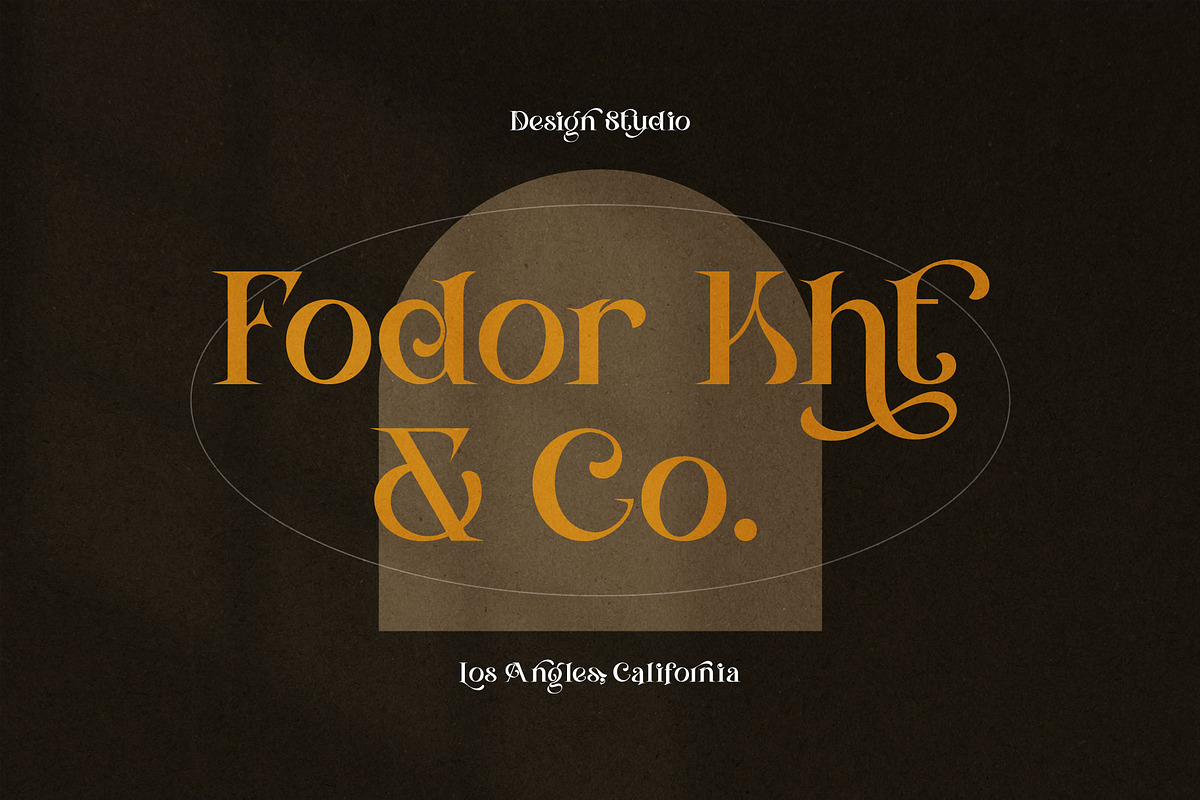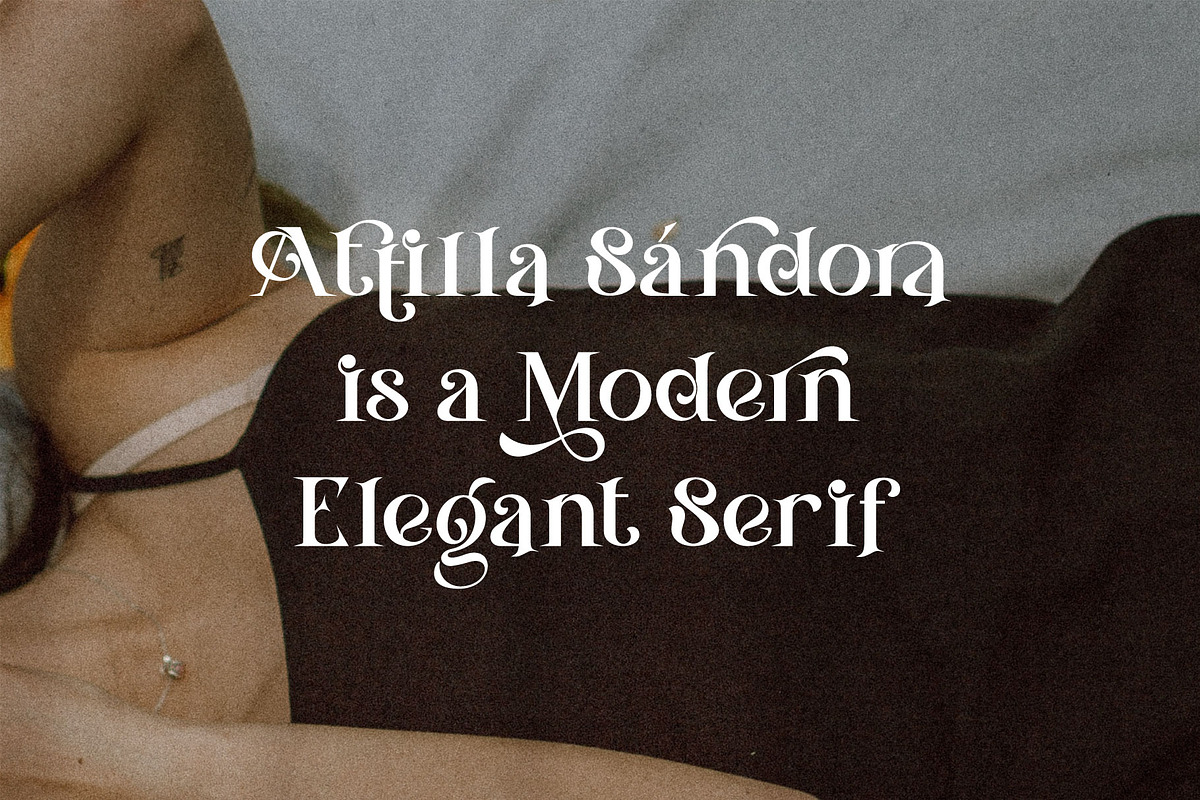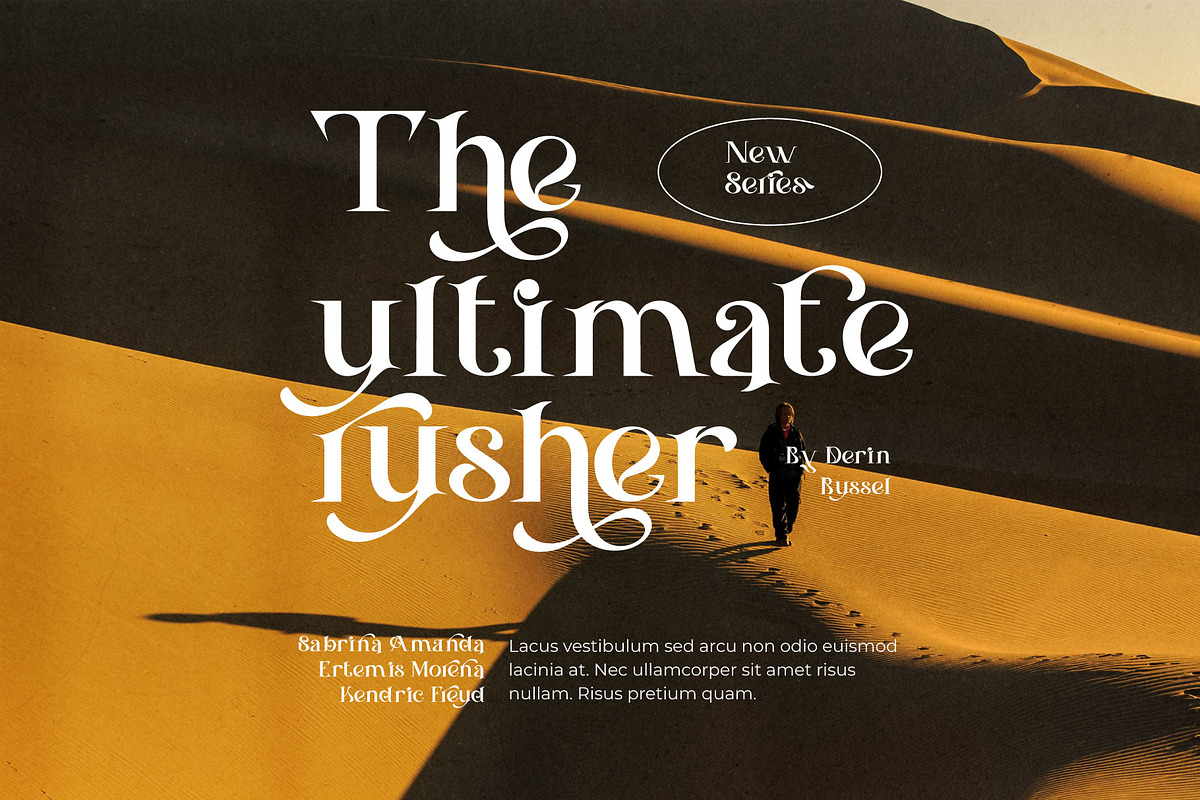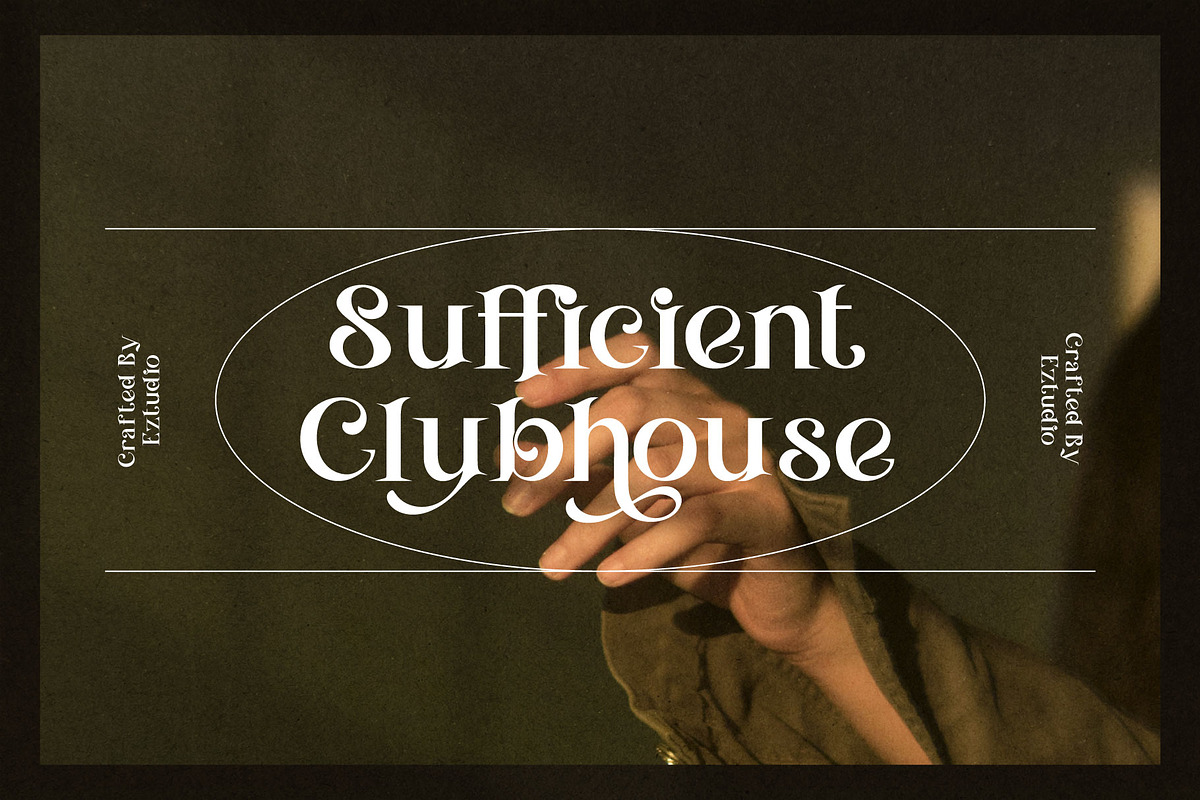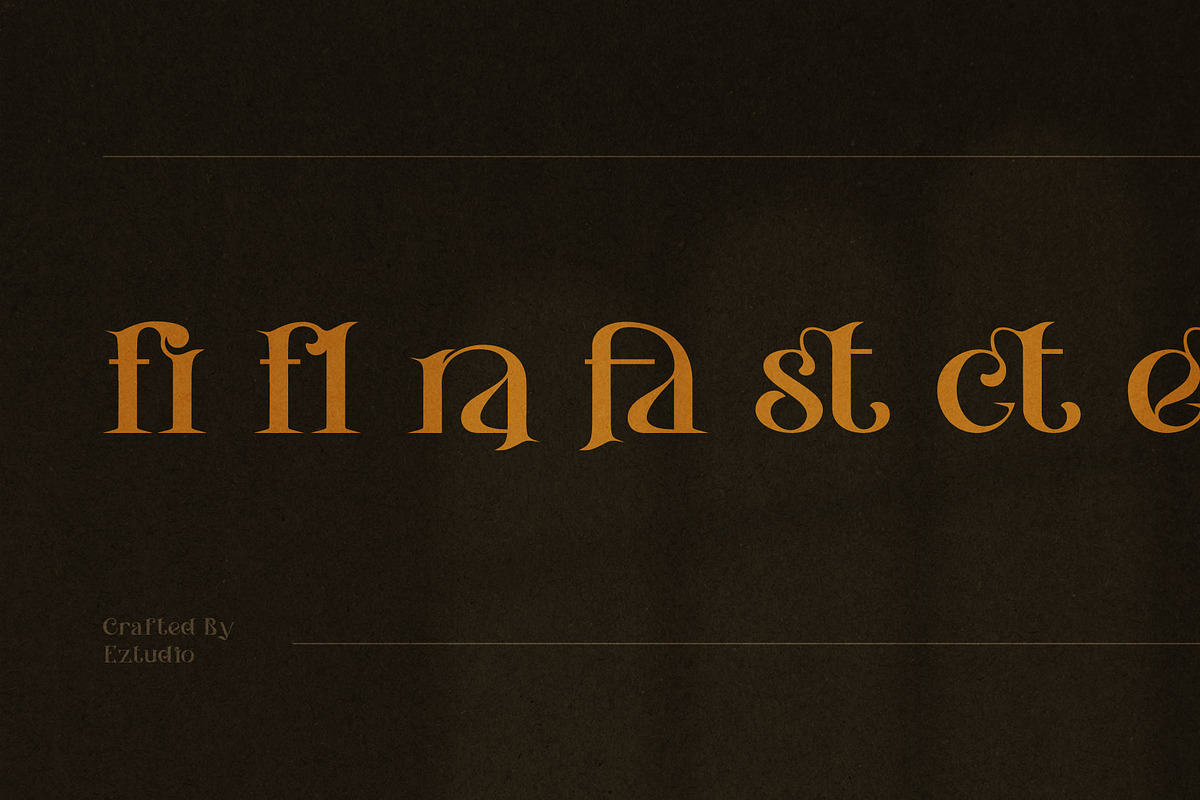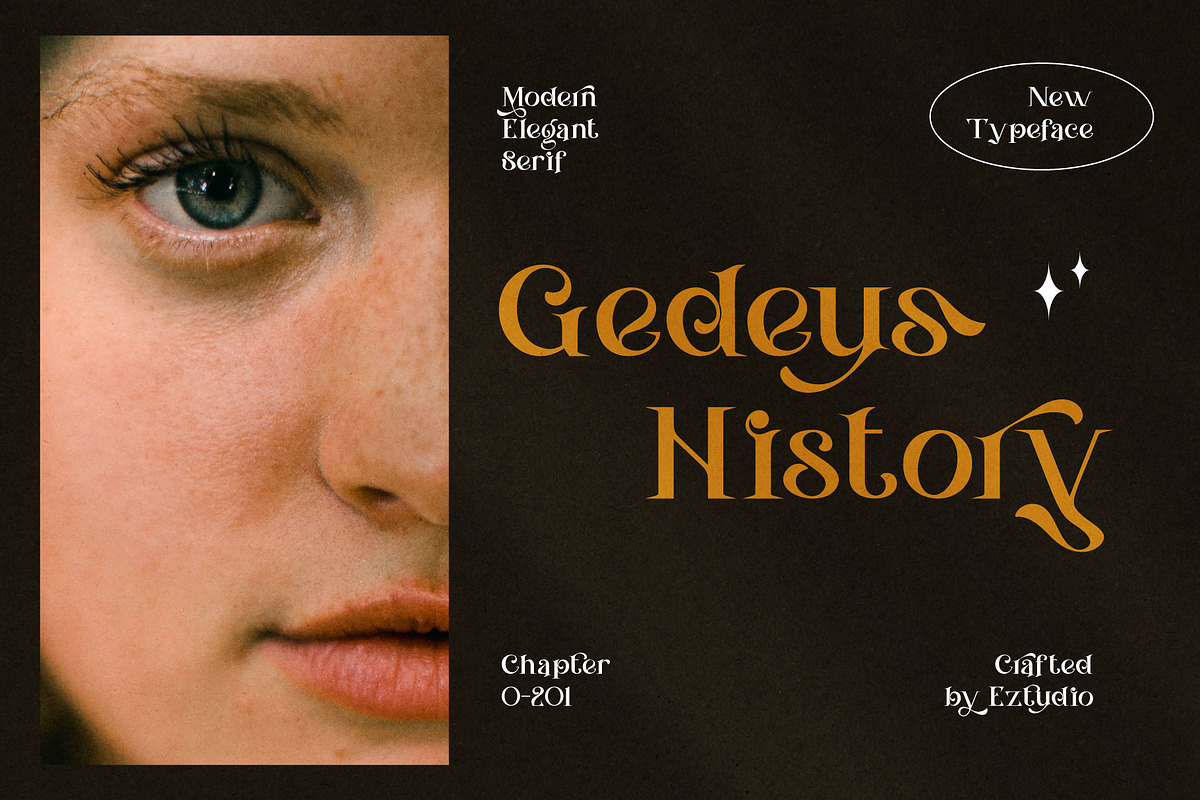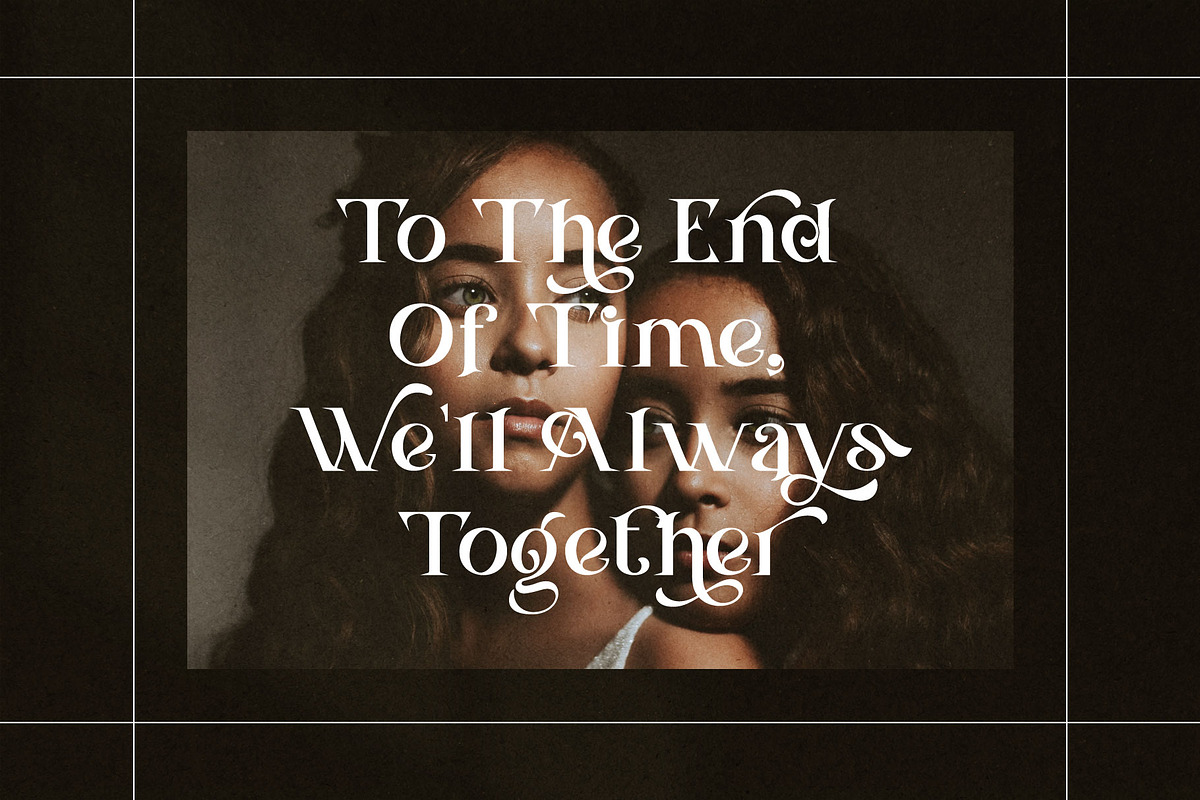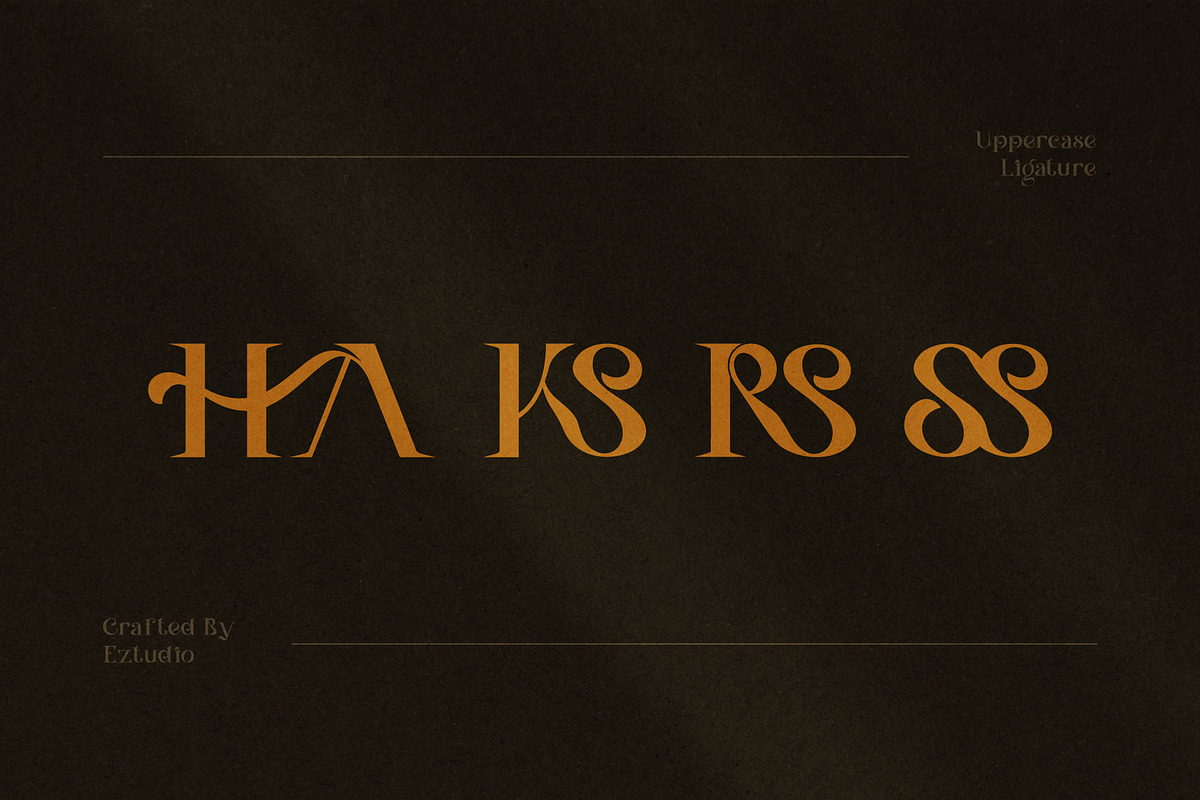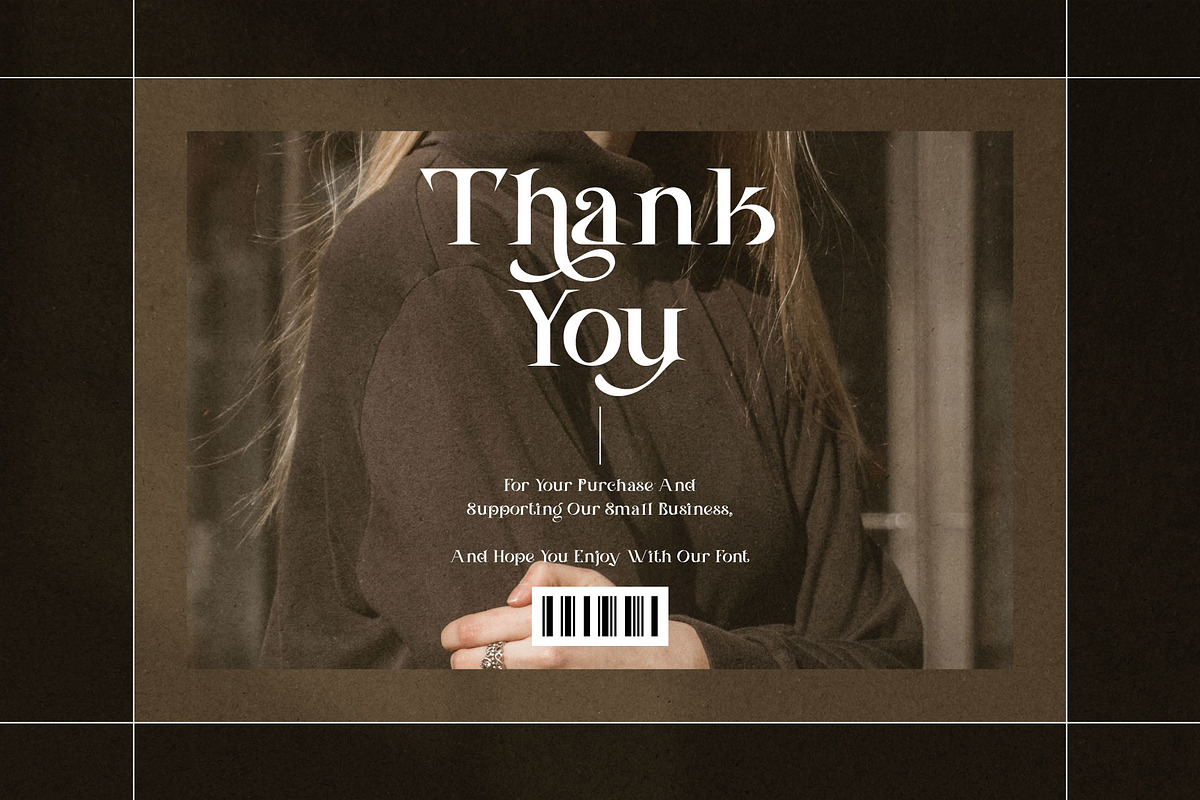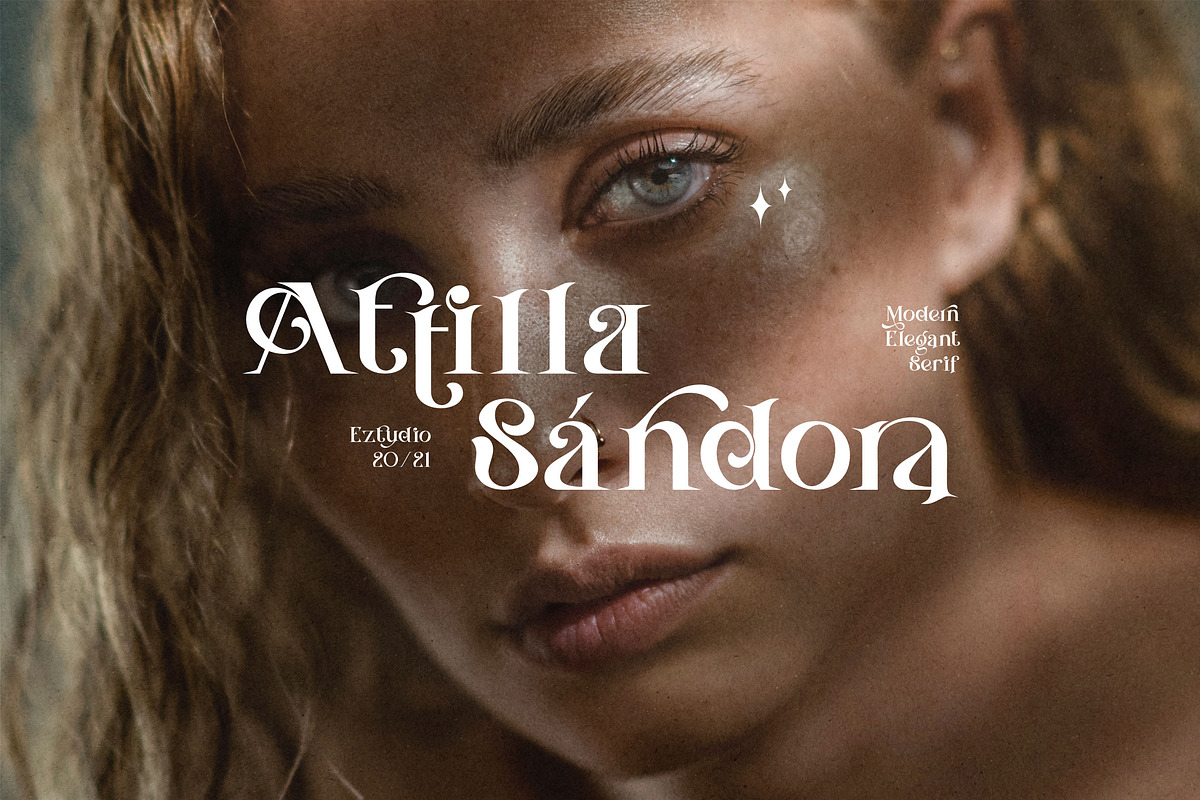
Attilla Sándora
Attilla Sándora is a modern, elegant and highly detailed serif font. This font is imposing and features uniquely shaped letters, and as a result, it will easily match a wide range of creations that require a distinct touch.
The Attilla Sándora font includes:
- Uppercase Letters
- Lowercase Letters
- Special Characters
- Multilingual Glyphs